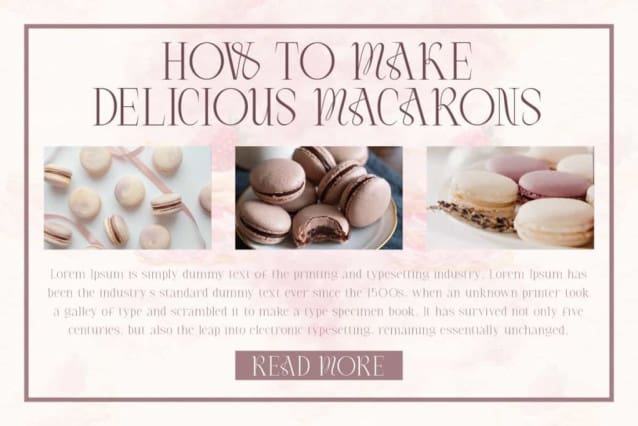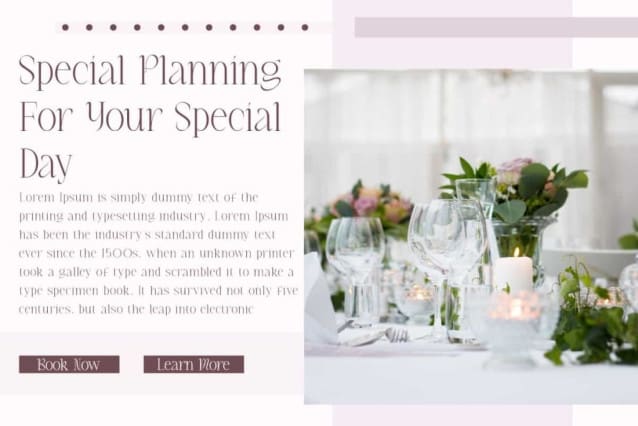
Dreamy Cakery Font
Dreamy Cakery Font is a sleek and elegant serif display font from VinType Studio. This font has a clean and minimalist appearance, making your design look exclusive. It will suits many designs, such as cover, custom design, gift box, invitation, label, poster, product packaging, quotes, screen printing, signage, stationery, title, website, and more!
Dreamy Cakery Font includes full set of Uppercase and Lowercase Basic Characters, Numerals, Punctuation, and Symbol. This font has a beautiful appearance that can make your design look luxurious and will be perfect for many industries, such as accessories and jewelry, advertising, beauty product, event or wedding organizer, fashion, florist, furniture, perfume, resort, restaurant, etc.